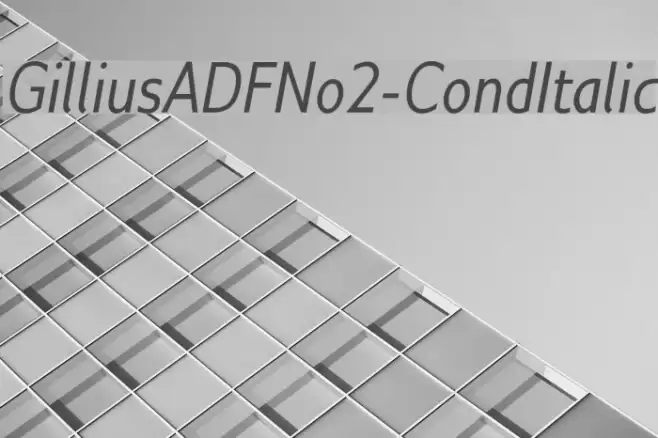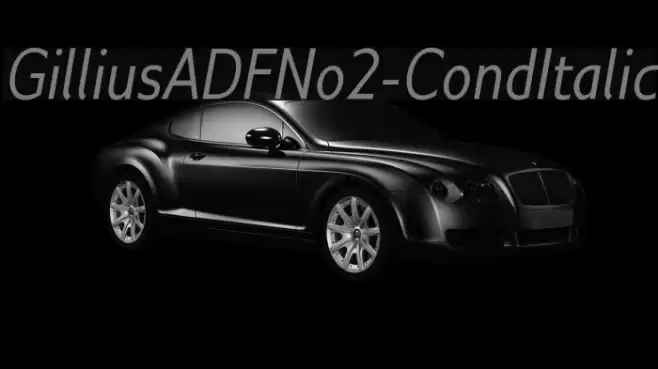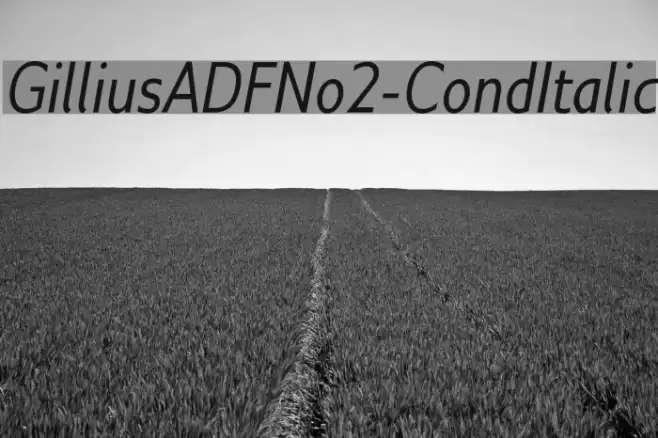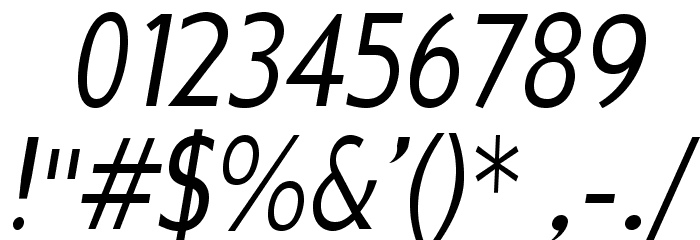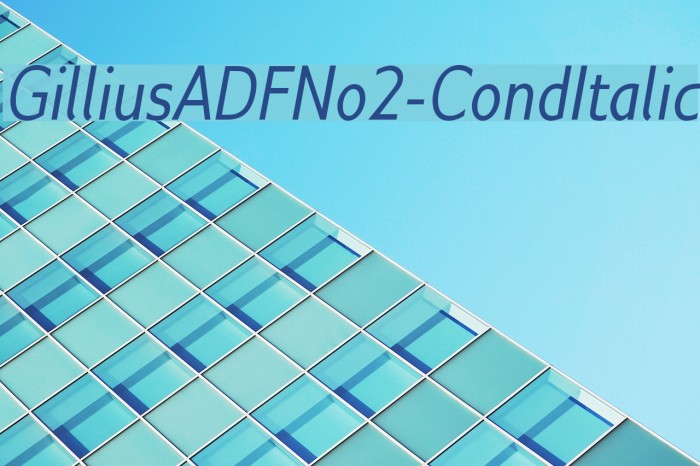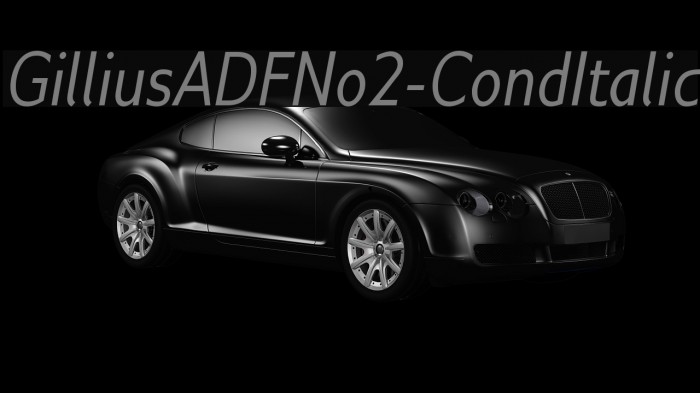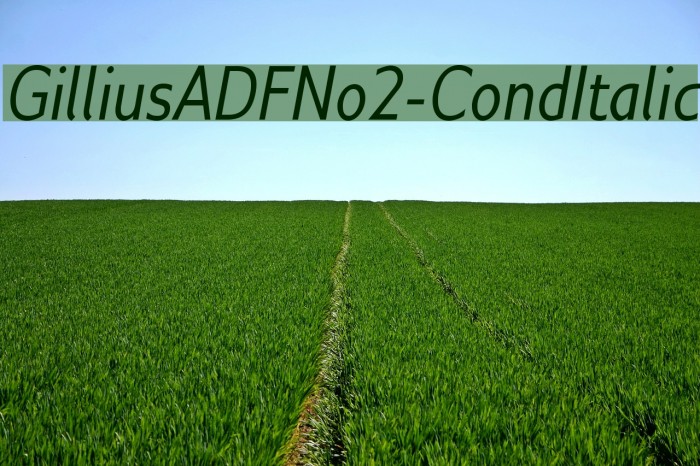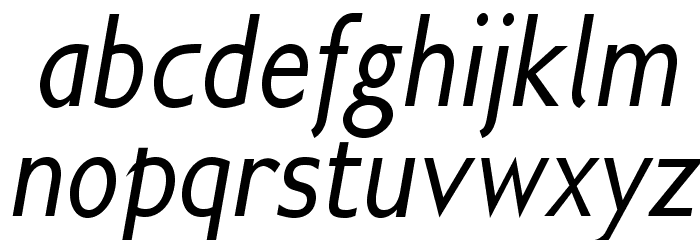
GilliusADFNo2-CondItalic Font
GilliusADFNo2-CondItalic Description
This font features a sleek and modern design with a slightly condensed structure, making it ideal for space-efficient text layouts. The italic style adds a dynamic and forward-leaning appearance, enhancing its contemporary feel. The characters are well-proportioned, with clean lines and smooth curves, providing excellent readability. The numerals are distinct and clear, ensuring they stand out in any context. Special characters are included, maintaining the font's cohesive style. Its overall aesthetic is both professional and approachable, suitable for a variety of design needs.
A modern, condensed italic font with clean lines and excellent readability from Uncategorized fonts.
- Proposed Projects: Ideal for branding, editorial design, advertising, and web design projects.